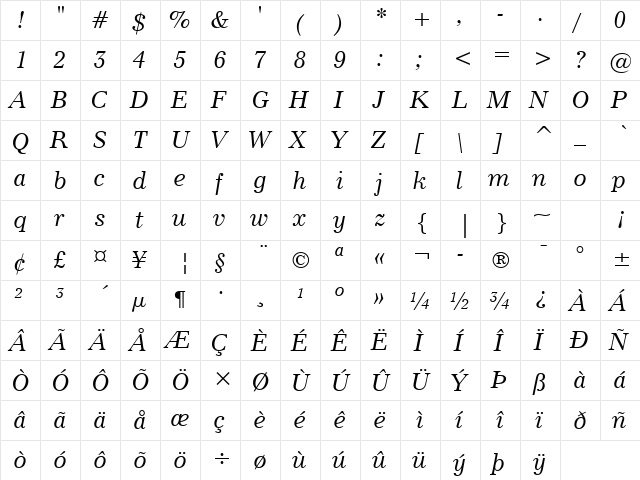
Modern880 BT Italic Font Preview
Modern880 BT Italic
Design Context for Modern880 BT Typeface
Modern880 BT offers clean, dependable letterforms without strong stylistic allegiance, making it a practical choice for designers who need flexibility. The dynamic lean of this cut emphasises speed and emphasis in any layout.
Pro Tip: Try Modern880 BT for annotation and caption copy alongside an upright companion — the contrast in angle creates a dynamic but ordered typographic system.